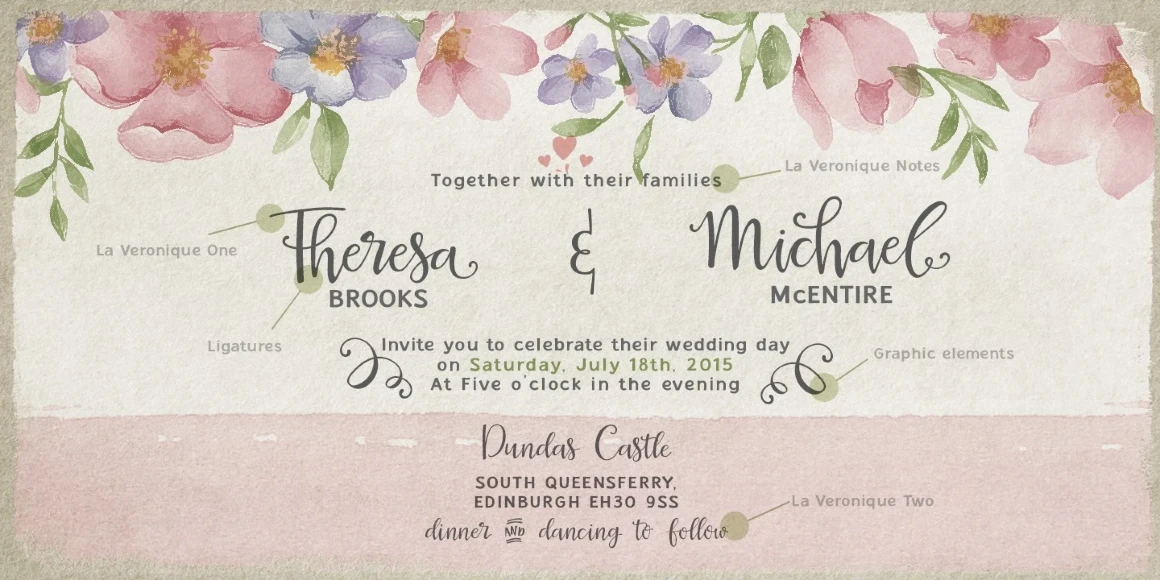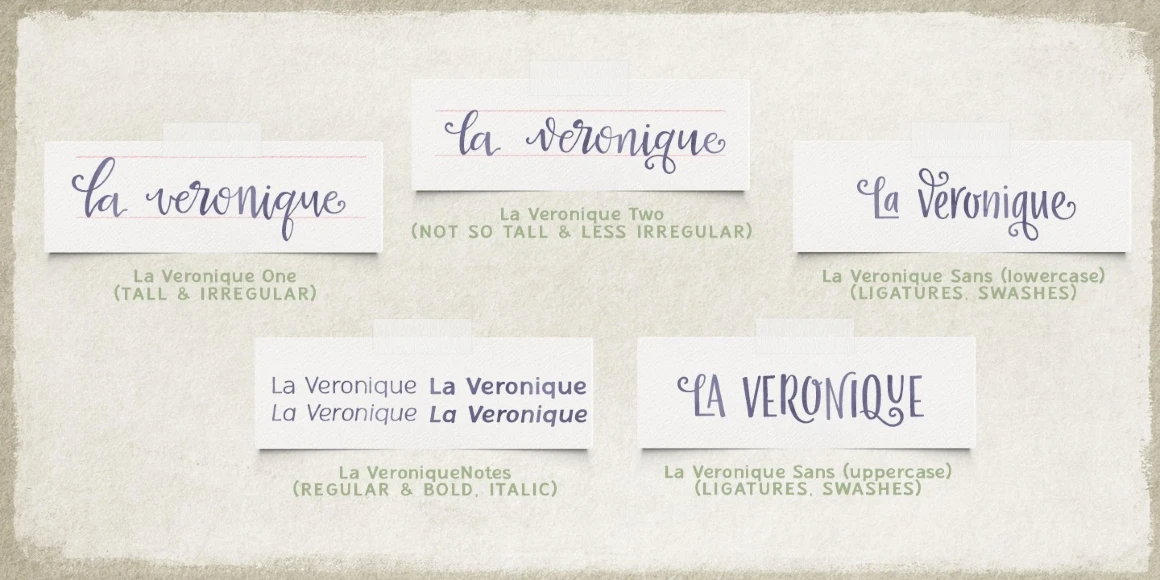
La Veronique Notes
From My Creative Land
La Veronique Notes is a hand-lettered humanist sans family, part of the more extensive, interconnected La Veronique collection of typefaces — all created with spring and sunshine in mind. With its 4 styles (Regular, Bold, Regular Italic, Bold Italic), Notes is the perfect foil for the more dramatically designed Canva, Script, and Sans. The design of La Veronique Notes is ideally suited for text meant to be read at small sizes. But don’t miss the subtle details you will find when used in larger sizes.
Designed by Elena Genova